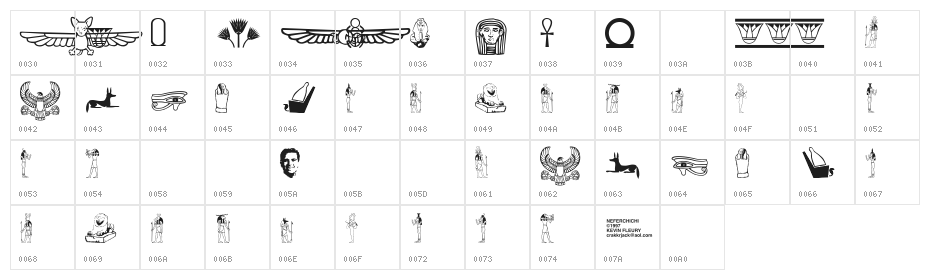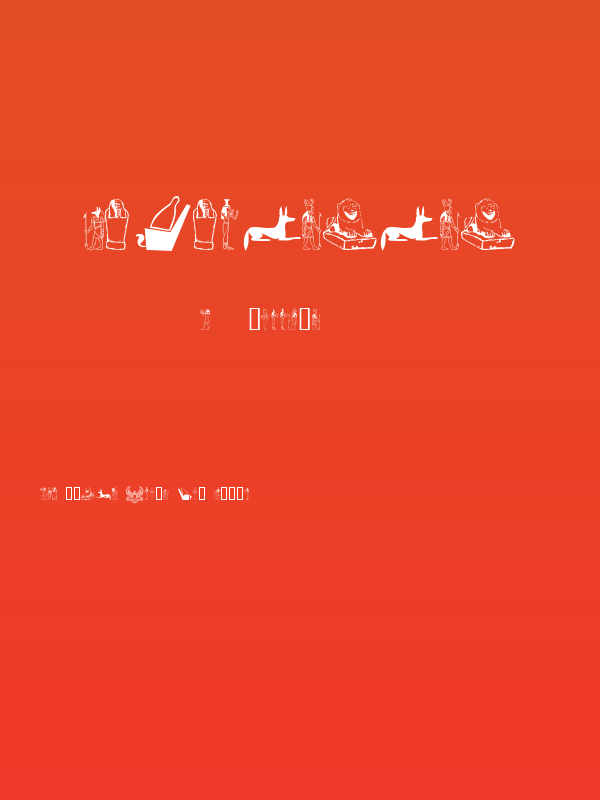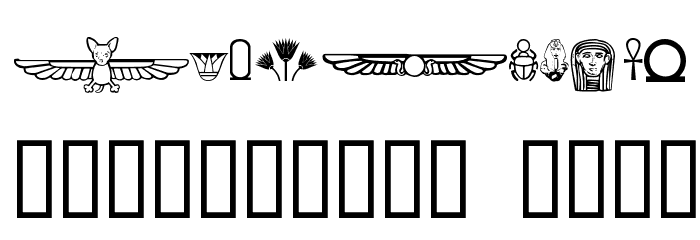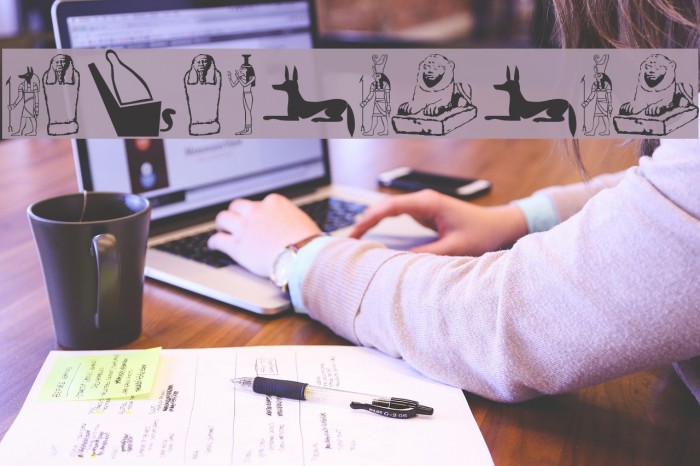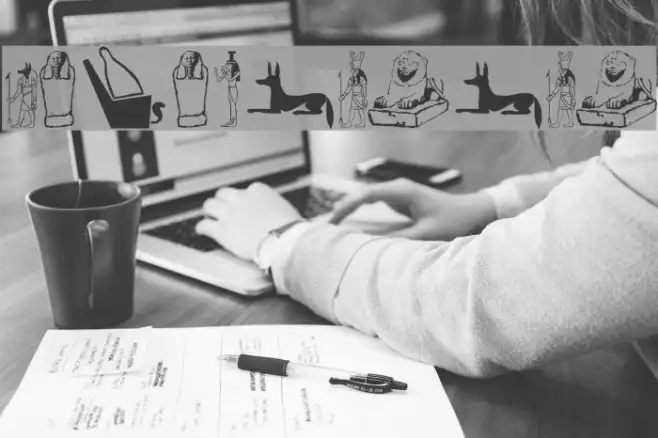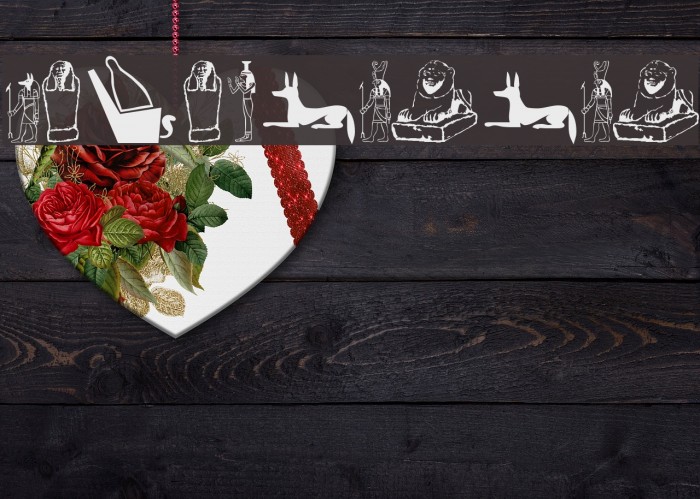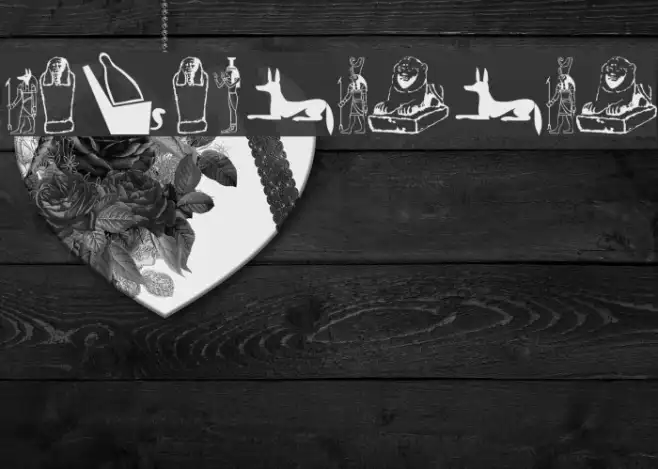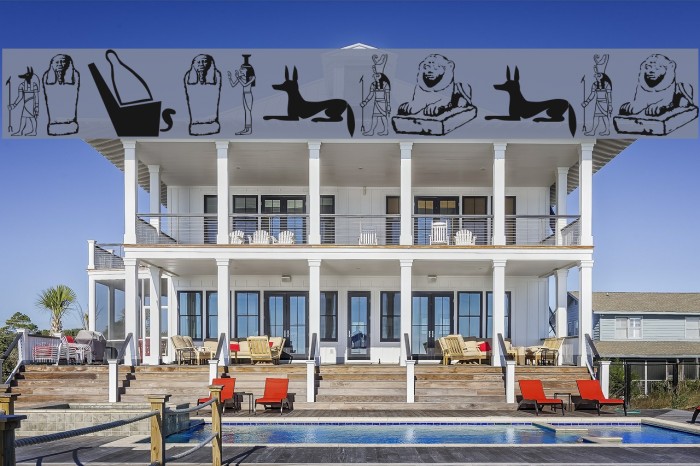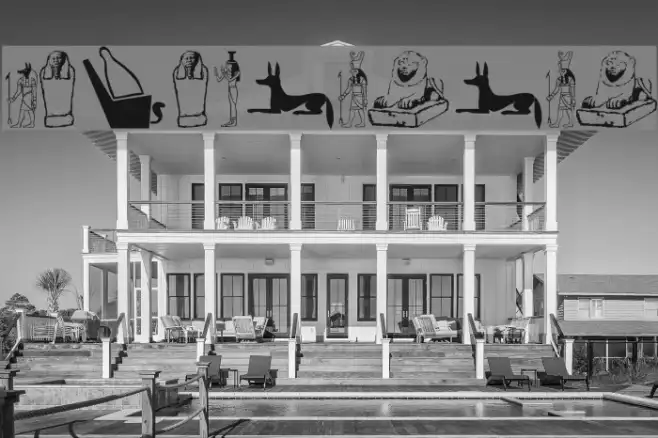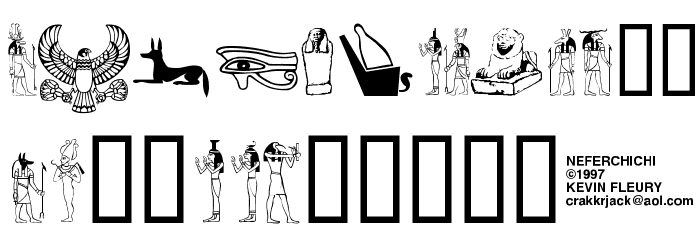
Neferchichi Font
Neferchichi Description
This font is a decorative typeface inspired by ancient Egyptian hieroglyphs, featuring intricate and detailed symbols that resemble historical artifacts and deities. Each character is represented by a unique pictogram, capturing the essence of Egyptian art with elements like the Eye of Horus, Anubis, and other iconic symbols. The design is highly illustrative, making it more suitable for thematic and artistic projects rather than traditional text. The font's aesthetic is both historical and artistic, offering a visually engaging experience that transports viewers to the ancient world.
| Use Case | Logos, Artistic projects, Themed events |
| Proposed Projects | Ideal for themed events, educational materials on ancient history, artistic projects, and decorative purposes. |